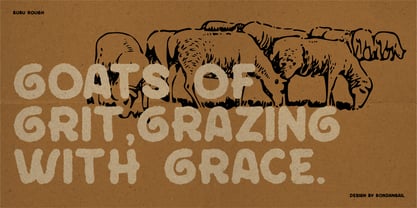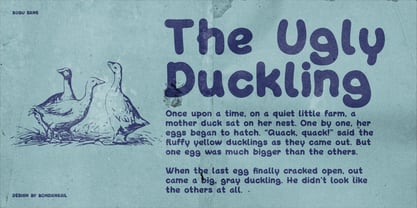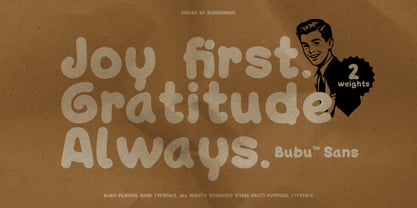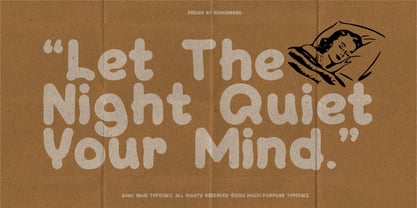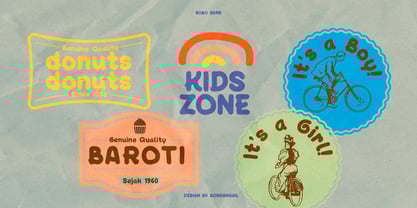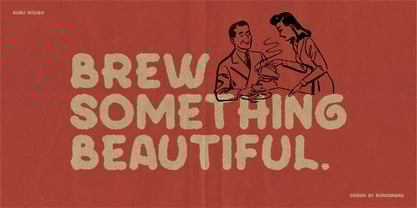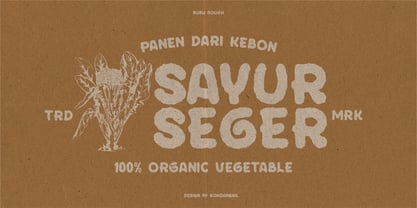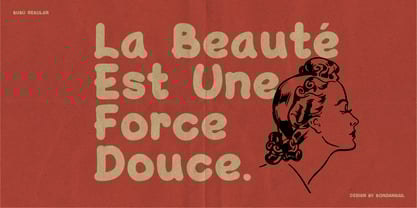
Bubu
by BondanGail
The Bubu Font Family was designed by Bondan Gail Saputro and published by BondanGail. Bubu contains 2 styles and family package options. More about this family
Bubu Sans is a bold rounded display font that brings warmth, charm, and instant personality to your designs. Its soft, bubble-like curves and smooth, consistent strokes create a friendly and approachable look while maintaining strong visual impact, making it perfect for eye-catching headlines and standout branding. Ideal for logos, packaging, children’s projects, and social media, Bubu Sans blends playful character with modern simplicity. Whether you’re creating something fun or adding a softer touch to a clean layout, this typeface delivers a bold yet lovable presence that connects effortlessly with your audience. Bubu Sans includes : • 2 style Typefaces Regular & Rough • Uppercase, Lowercase, Numeral, Symbol and Punctuation • Multilingual • Works on PC & Mac • Accessible in Adobe Illustrator, Adobe Photoshop, Adobe InDesign, even work on Microsoft Word. • Image used: All photographs/pictures/vectors used in the preview are not included, they are intended for illustration purposes only.
Designers: Bondan Gail Saputro
Foundry: BondanGail
BondanGail is a type foundry based in Beji, Indonesia. We specialize in crafting distinctive typefaces for both print and digital applications. Our library spans a range of styles, from hand drawing font to impactful bold sans-serifs. We offer bespoke typeface design and personalized font consulting. Our mission is to create timeless typefaces with lasting impact that inspire for generations.